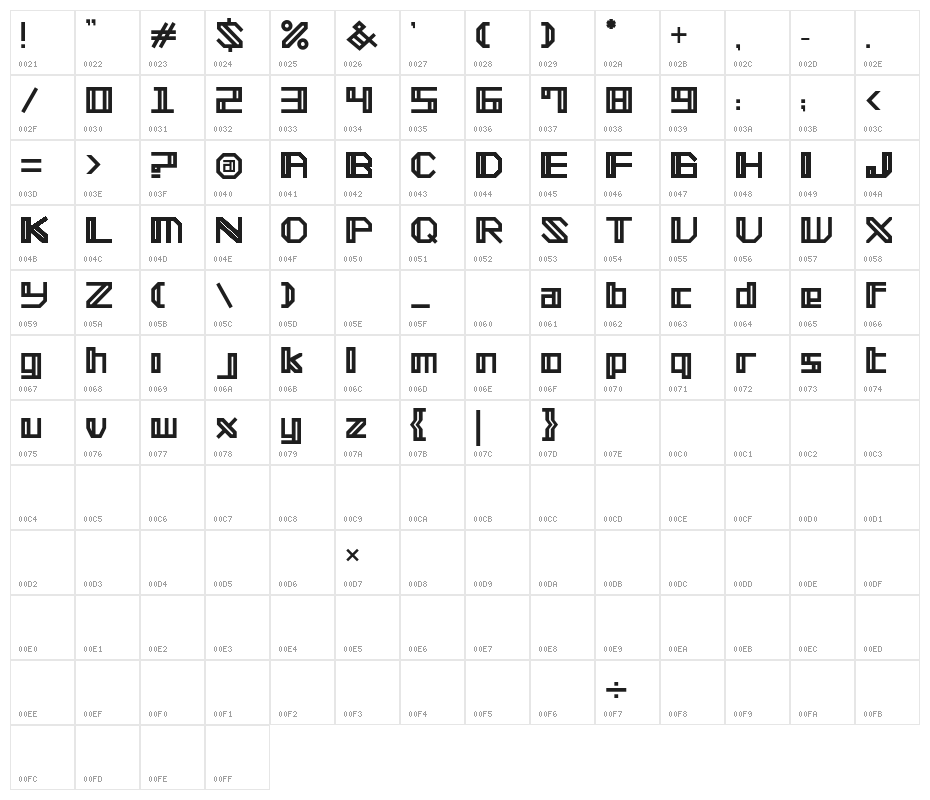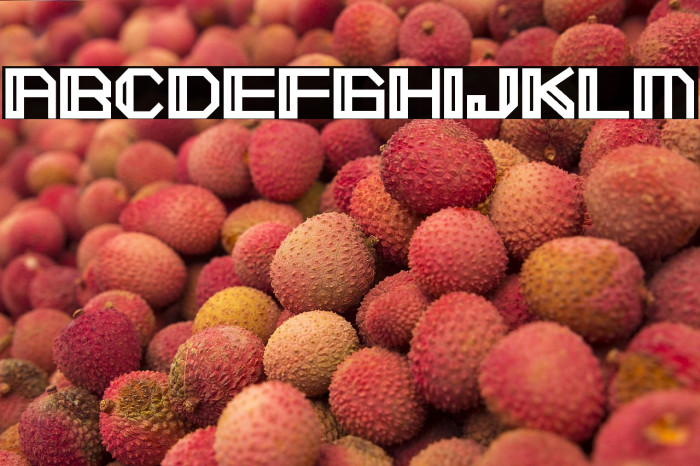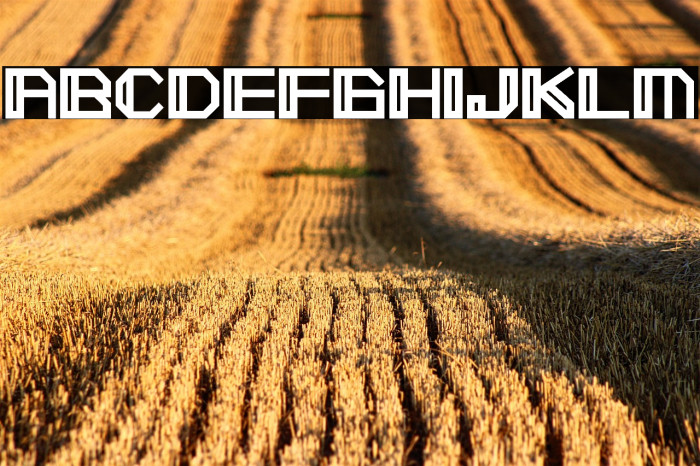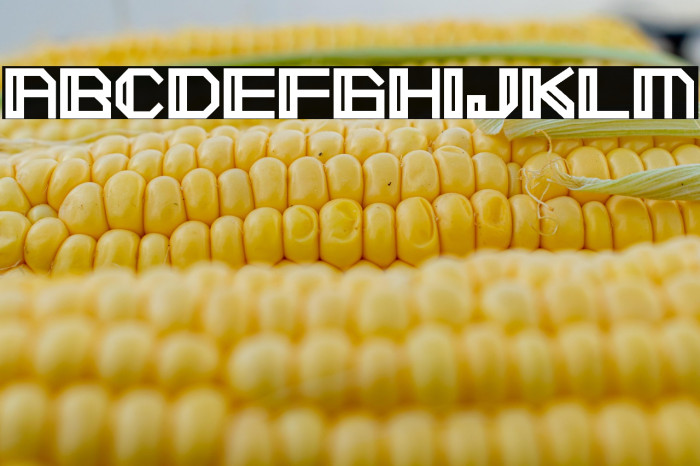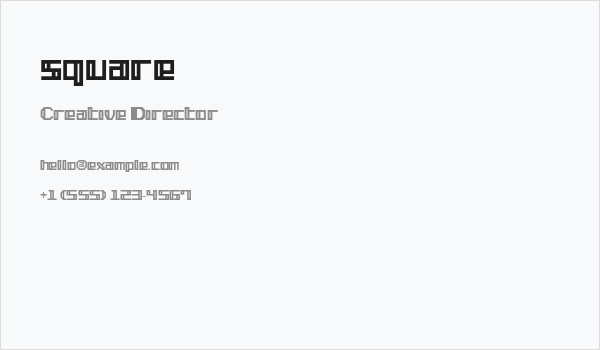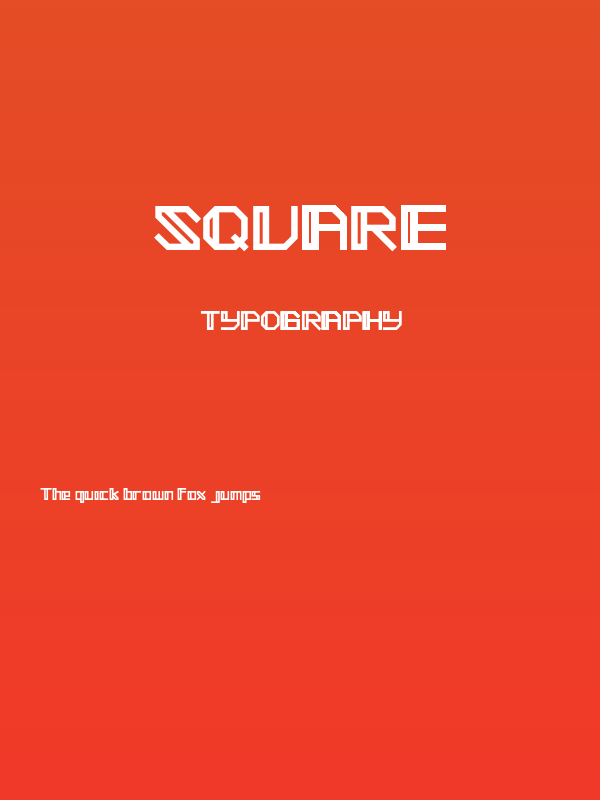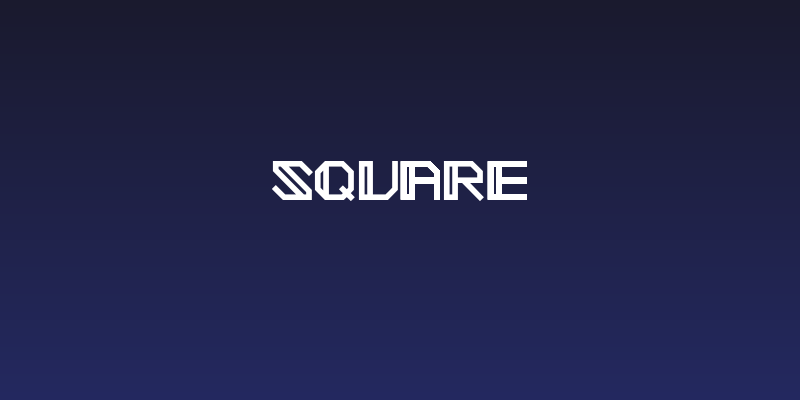
square Font
square Description
This font features a bold, geometric design with a distinctly modern and futuristic aesthetic. Each character is constructed with thick, uniform strokes that form angular, almost mechanical shapes. The uppercase letters are particularly striking, with sharp edges and a blocky appearance that suggests a sense of strength and stability. The lowercase letters maintain this geometric style, offering a cohesive look across the typeface. Numbers and special characters are designed with the same bold, angular lines, ensuring consistency throughout. The overall style is highly decorative, making it ideal for projects that require a strong visual impact.